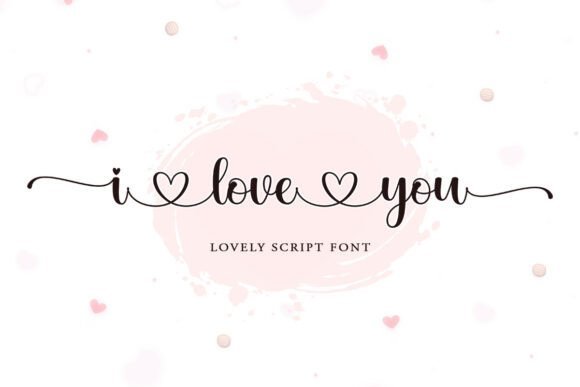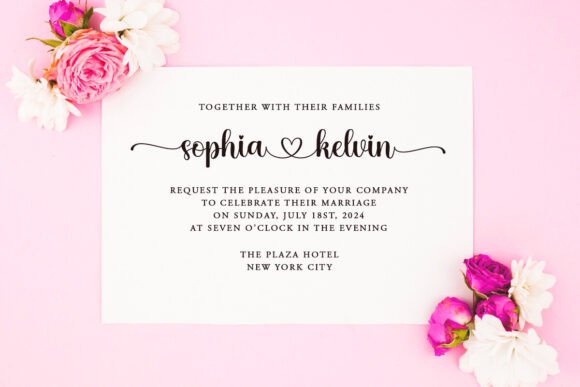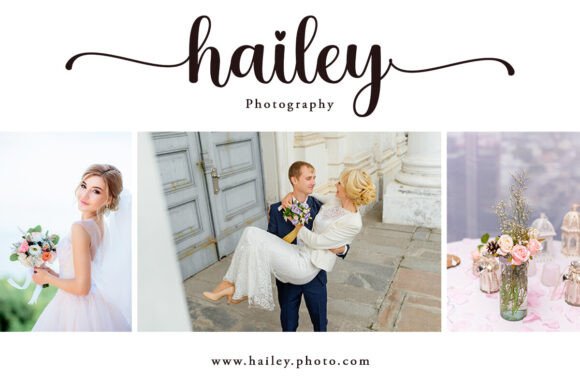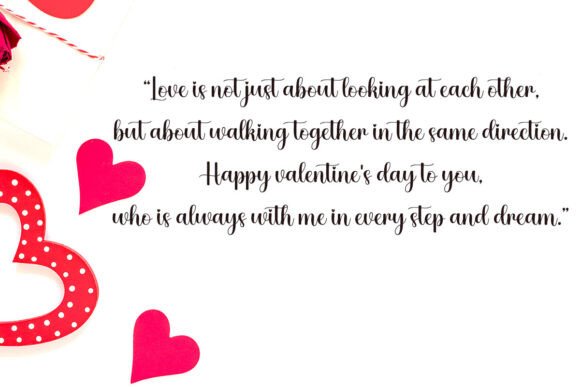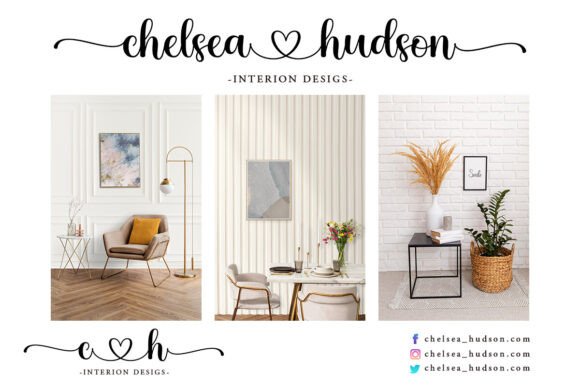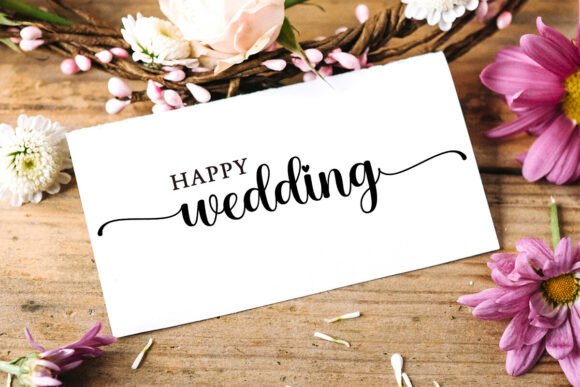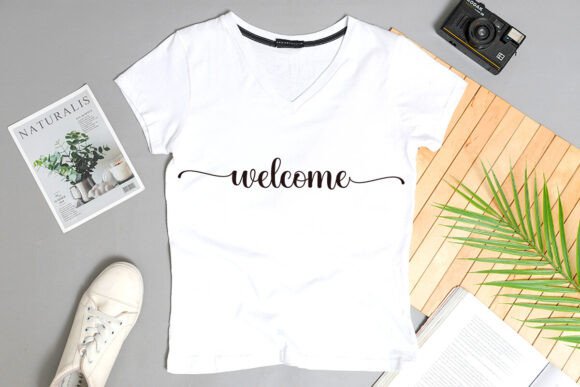
The Perfect Font to Express Your Heartfelt Creations
As a designer, have you ever stared at a blank canvas, trying to put into words the emotions and feelings behind your next project? It’s that moment when you realize the power of typography in conveying your message. For me, it’s when I’m brainstorming ideas for a heartfelt love letter or a wedding invitation – I want my words to feel like a warm hug, not just a generic greeting. That’s where the I Love You Font comes in – a beautiful, elegant, and flowing handwritten font that speaks directly to the heart.
This gorgeous font features varied baselines, smooth lines, and stunning alternatives that will elevate your designs to new heights. Its classy calligraphic influence and fresh, contemporary feel make it the perfect choice for any project that needs a touch of romance and sophistication. Whether you’re a seasoned designer or just starting out, the I Love You Font is a valuable addition to your toolkit – fall in love with its beauty and take your projects to the highest level!
I Love You Font Key Features
- Unique Characteristics: Hand-drawn, cursive, and playful design with a mix of uppercase and lowercase letters
- Font Style: Script, Casual
I Love You Font Review
I recently had the chance to work with the “I Love You Font” and here’s my honest take on it. ✨ One thing that really stands out is the unique design aesthetic. The font’s playful, cursive style makes it perfect for creating eye-catching headings and titles. It’s also surprisingly versatile, working well in both digital and print applications.
- Unique design aesthetic
- Perfect for headings and titles
- Works well in digital and print applications
However, there are some limitations to consider. ⚠️ For one, the font can be a bit overused, so be sure to use it thoughtfully to avoid clichés. Additionally, the font’s cursive style can be difficult to read at smaller sizes, so be mindful of font sizes and legibility.
- Can be overused
- Difficult to read at smaller sizes
Overall, I’d say the “I Love You Font” is a solid choice for designers looking for a playful, eye-catching font. While it’s not perfect, its unique design aesthetic and versatility make it a great addition to any design toolkit.
The “I Love You Font” is a playful and romantic font that is perfect for Valentine’s Day, weddings, and other romantic occasions.
Some common use cases include:
- Creating Valentine’s Day cards and gift tags.
- Designing wedding invitations and save-the-dates.
- Adding a touch of romance to social media posts and blog articles.